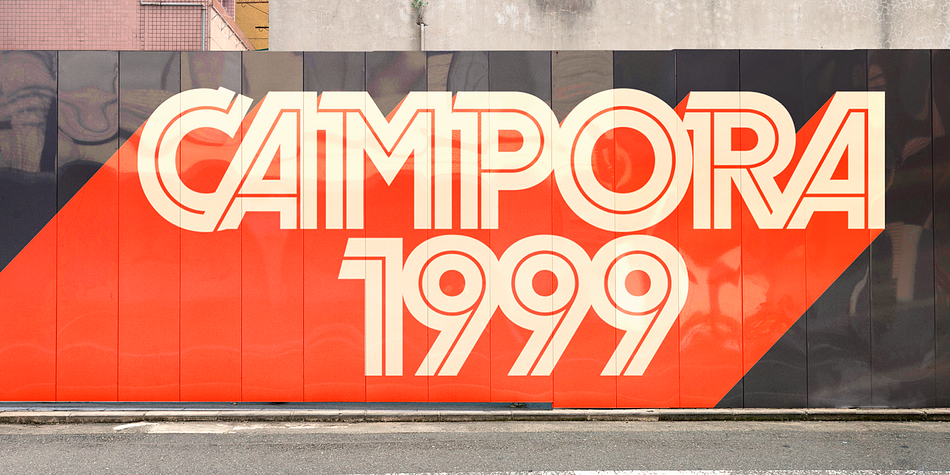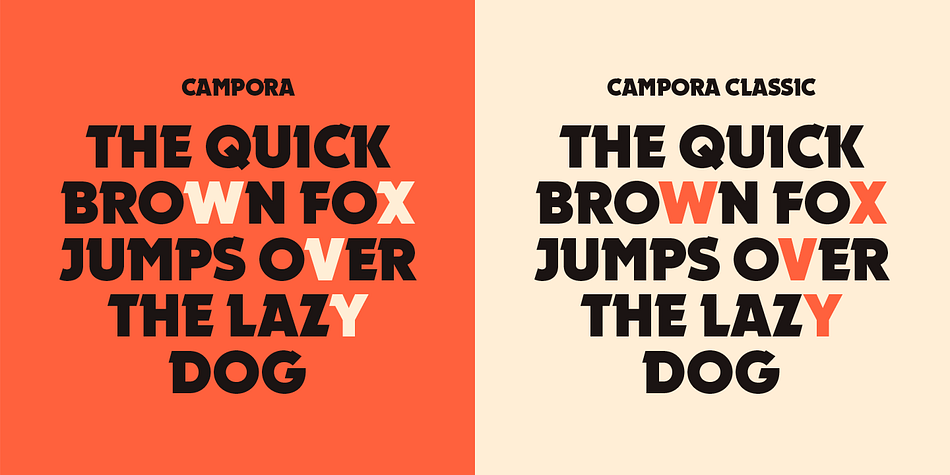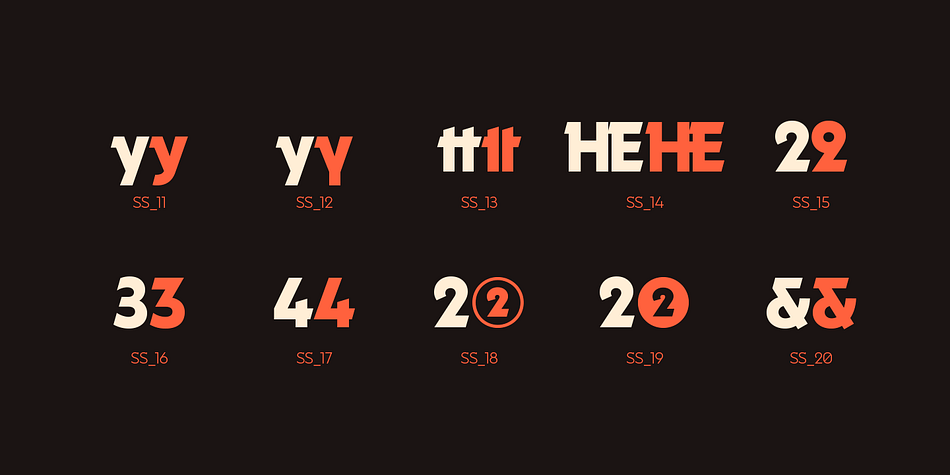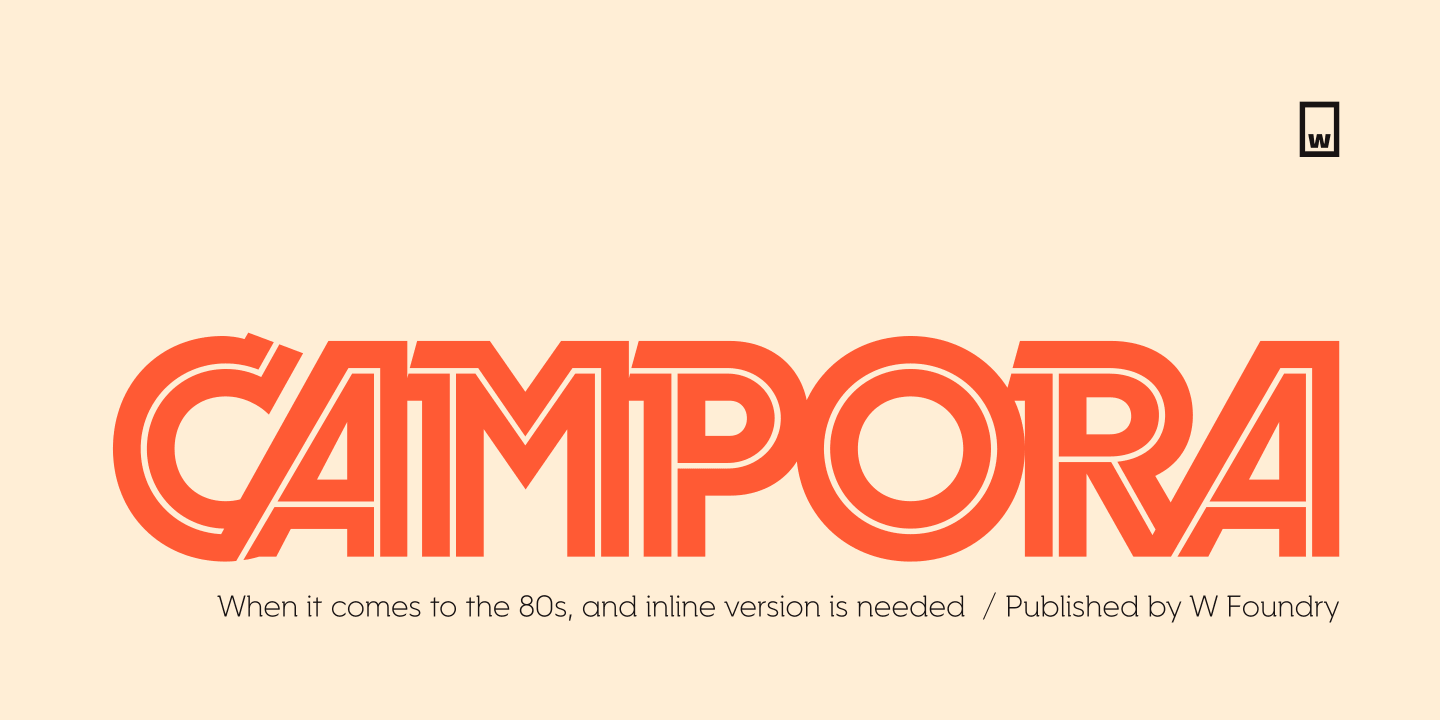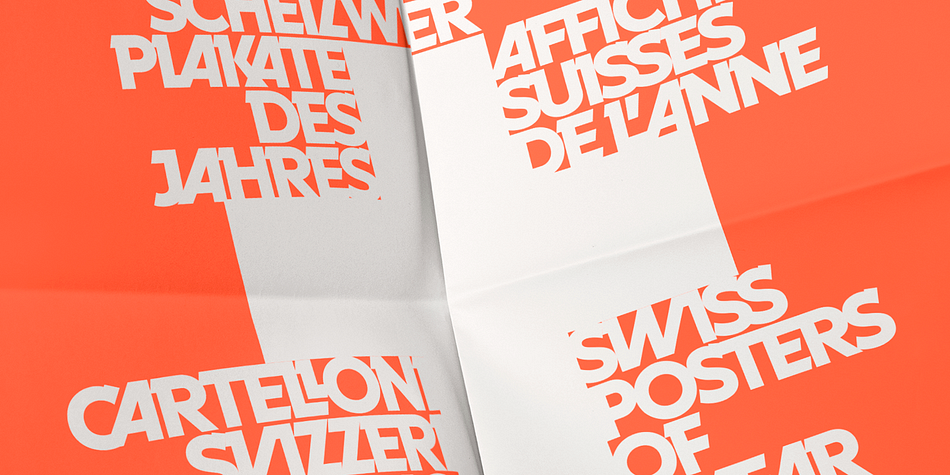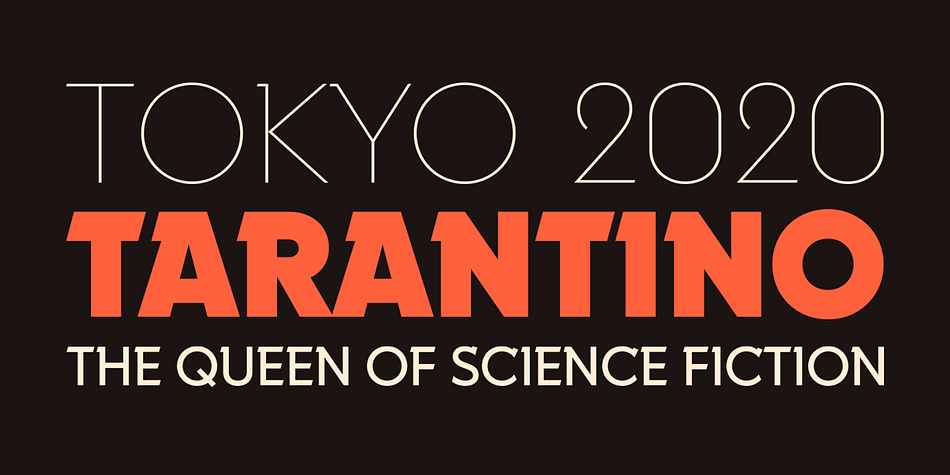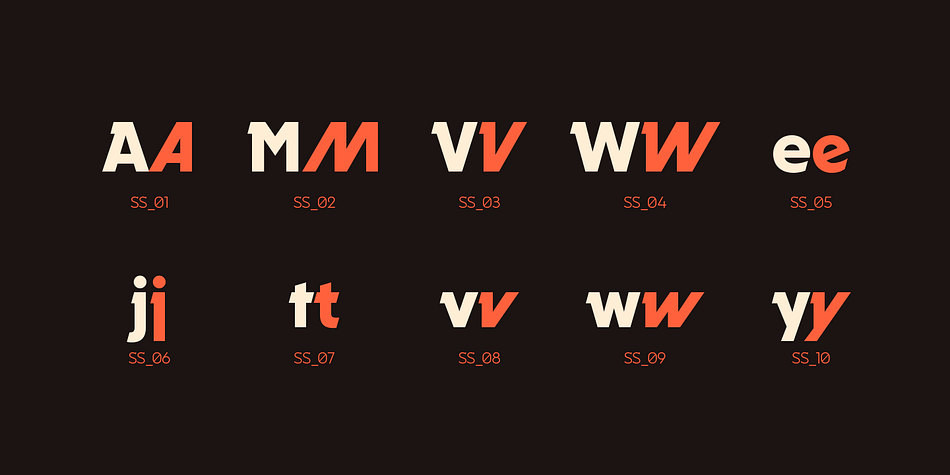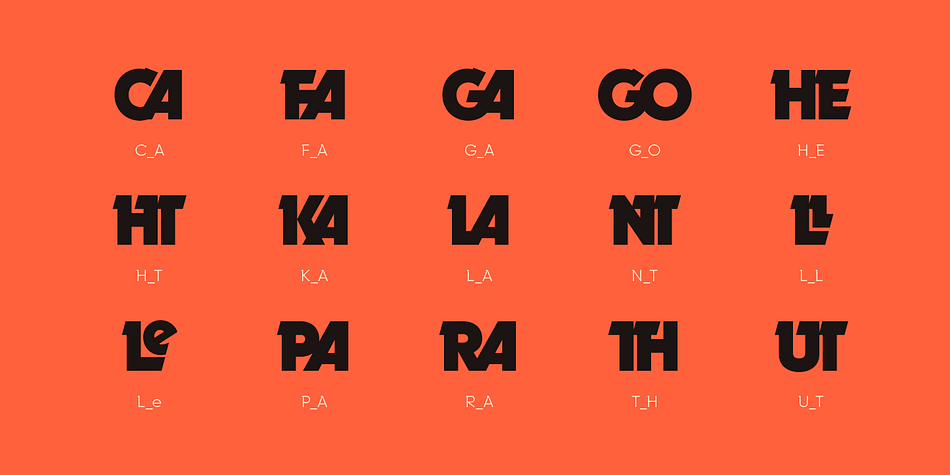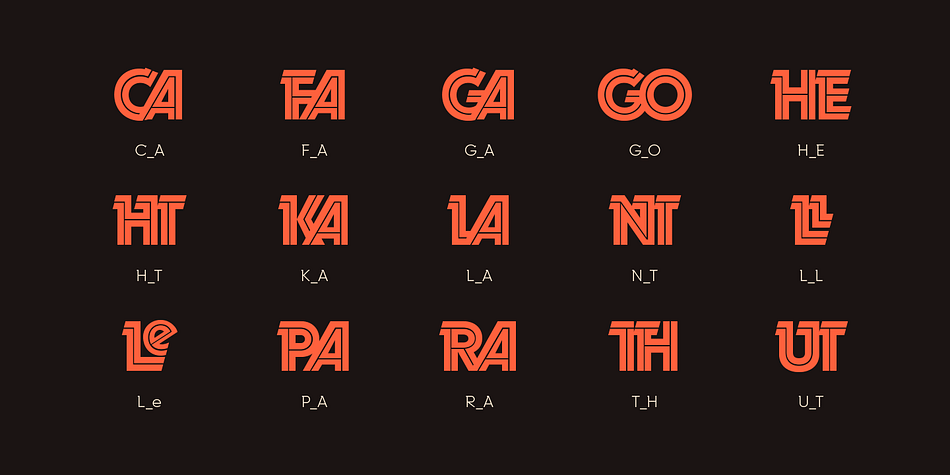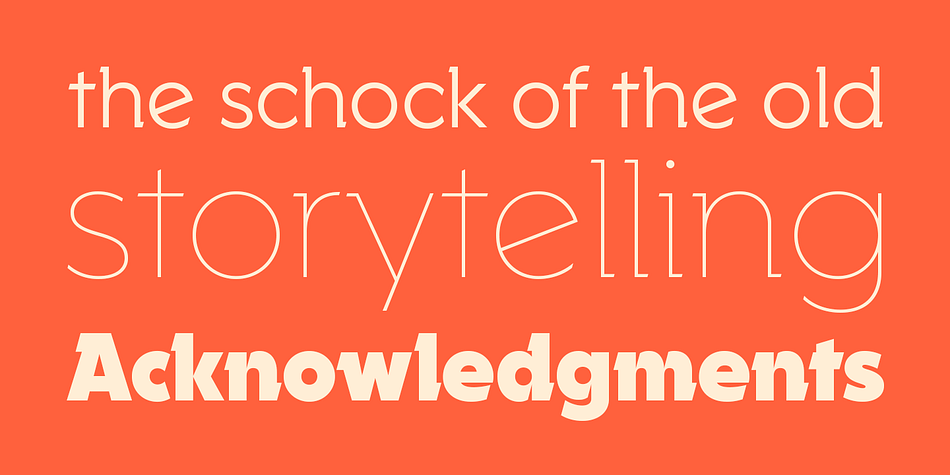
Designed by Salvador Rodríguez, Campora is a display serif font family. This typeface has nineteen styles and was published by W Foundry.
This year we attended the Bologna Children’s Book Fair in Italy. In our days off, we went to Piazza Maggiore to see what the city had to offer and luckily for us we saw an incredible store sign saying CAMPORA. We took some pictures of the typed font and later back in the studio we discovered that it was Dynamo. Immediately our minds were blown away by its beauty and thus we decided to design a new font inspired by its sharp and geometric design adding new weights and OpenType features. In the process we realized that both Dynamo and one of our favorite fonts Avant Garde, share a similar structure, so we made a type mashup between these beauties, including the sharpness of Dynamo and the revolutionary ligatures of Avant Garde.